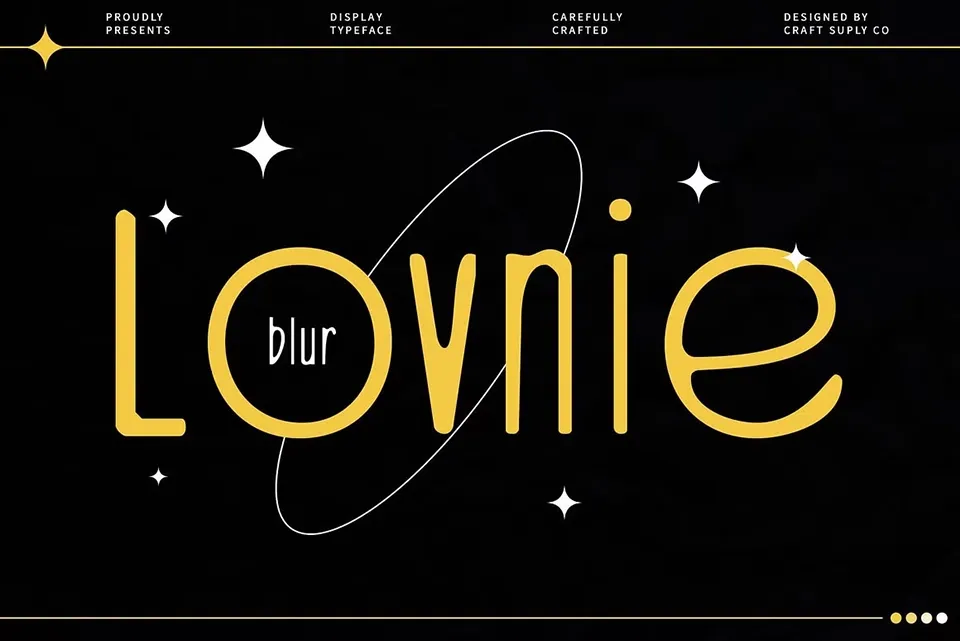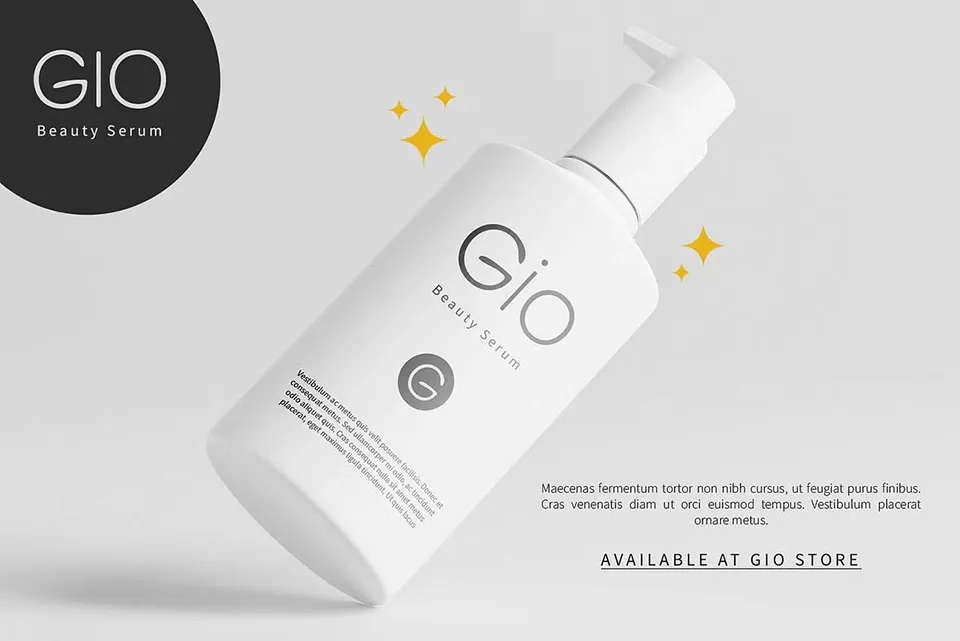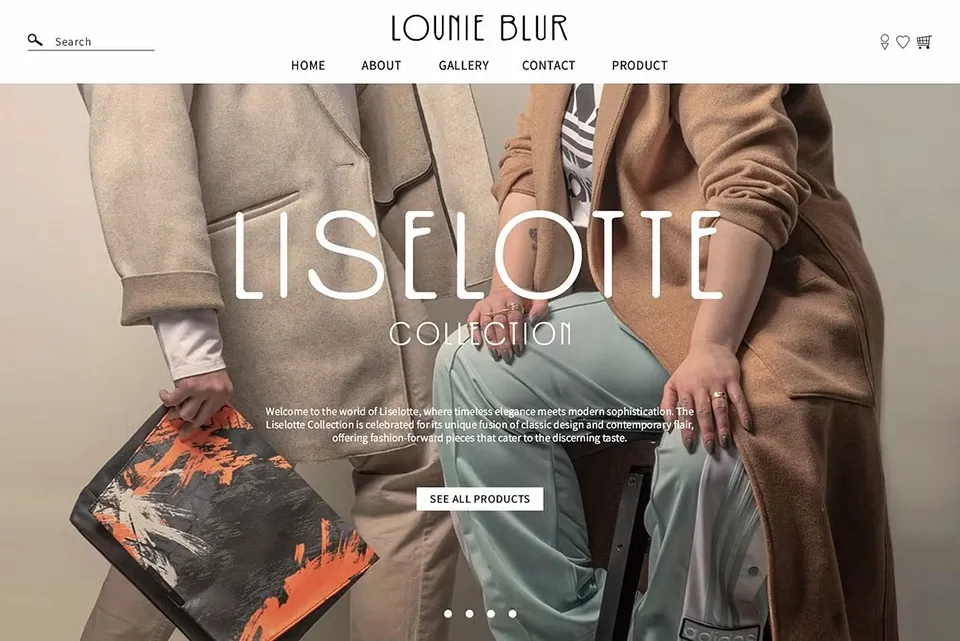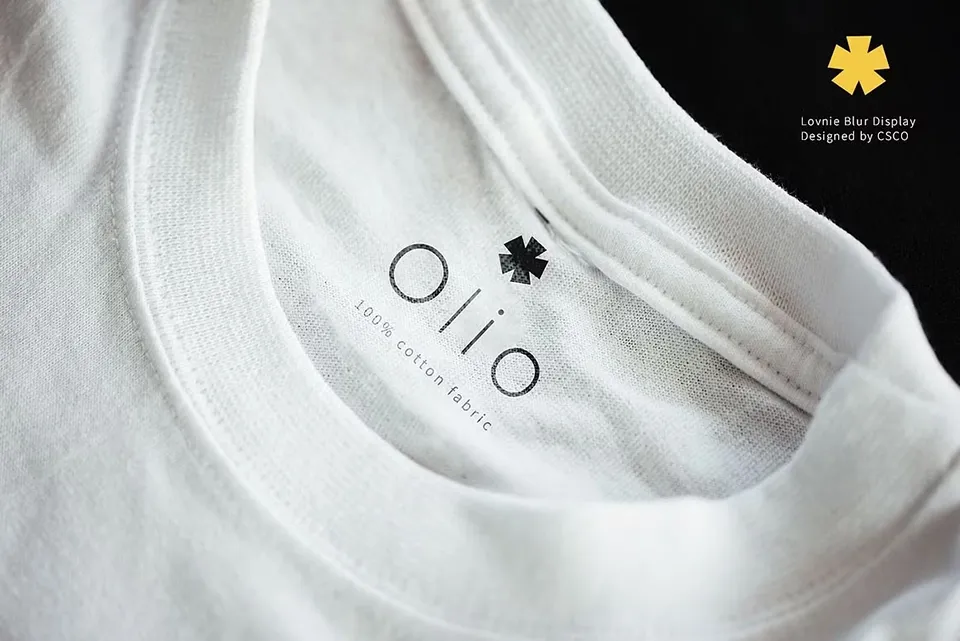
Lovnie Blur Font
Lovnie Blur Font is a modern sans serif typeface that captures the geometric elegance of Art Deco with a contemporary blur effect. Its clean, bold letterforms and subtle blur details create a sophisticated and captivating look, making it a timeless choice for luxury branding, editorial design, and formal invitations. Lovnie Blur Font blends vintage aesthetics with modern innovation, ensuring your designs stand out with a distinctive and elegant touch.